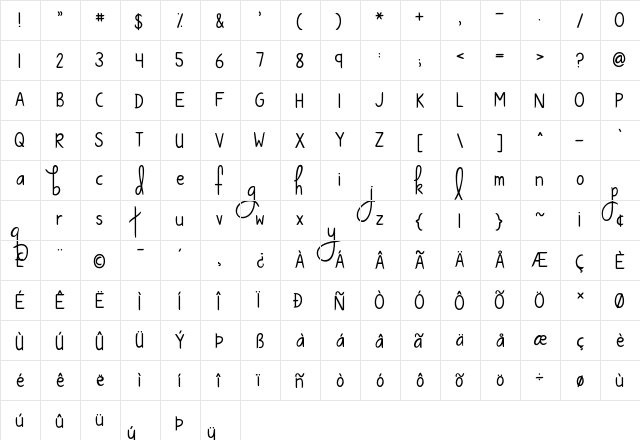
KG Ways to Say Goodbye Regular
| Foundry | Kimberly Geswein |
| Designer | Kimberly Geswein |
Design Context for KG Ways to Say Goodbye Typeface
KG Ways to Say Goodbye is a composed and adaptable typeface that performs quietly and consistently across a wide range of design contexts.